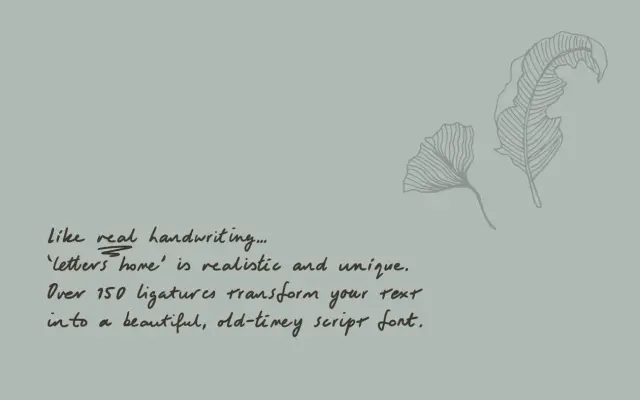
Letters Home
A casual handwritten script with over 150 ligatures designed to mimic natural pen-written correspondence with an old-fashioned warmth.
Drawn with a thick pen and packed with more than 150 handwritten ligatures, the font aims to replicate the irregular, lived-in quality of genuine handwriting. The old-timey character makes it well suited to greeting cards, recipe cards, personal stationery and nostalgic branding. Its charm lies in the variation ligatures introduce, reducing the repetitive look common to many script fonts.
Letters Home is a casual handwritten script with extensive ligature support, mimicking natural pen-written correspondence rather than formal calligraphic lettering.